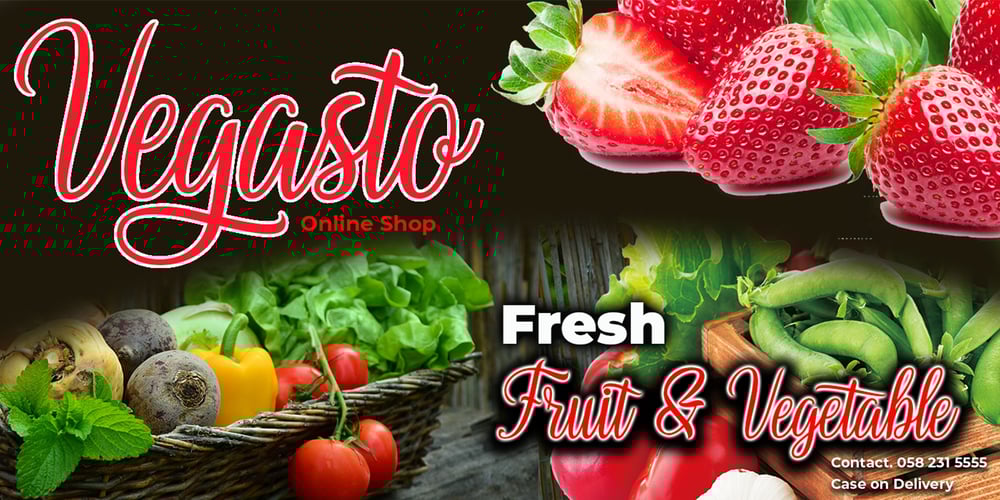
Aishanaziha
Aishanaziha font
Aishanaziha Font Family was designed by May Adifarzan muis and published by Matra Creative. Aishanaziha contains 1 styles and family package options. Aishanaziha is a brush script font based on original handwritten expressions, allowing you to transform types into interesting and beautiful works. The handwriting display adds a real human touch to things and is accompanied by many loving details. Aishanaziha has many alternatives that give you the possibility to build your text almost like handwriting with all the imperfections and charming variations that real handwriting has. It will work perfectly for fashion, brand e-commerce, trend blogs, wedding boutiques or any business that wants to look luxurious and elegant